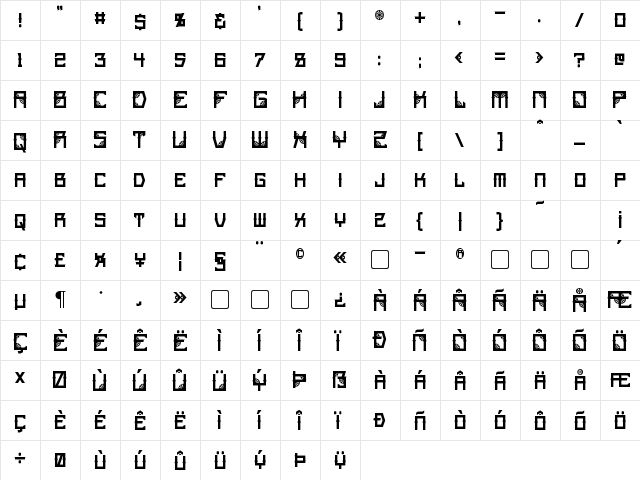
Steamwheel Regular
| Foundry | Pixel Sagas |
| Designer | Neale Davidson |
Steamwheel is a composed and adaptable typeface that performs quietly and consistently across a wide range of design contexts.